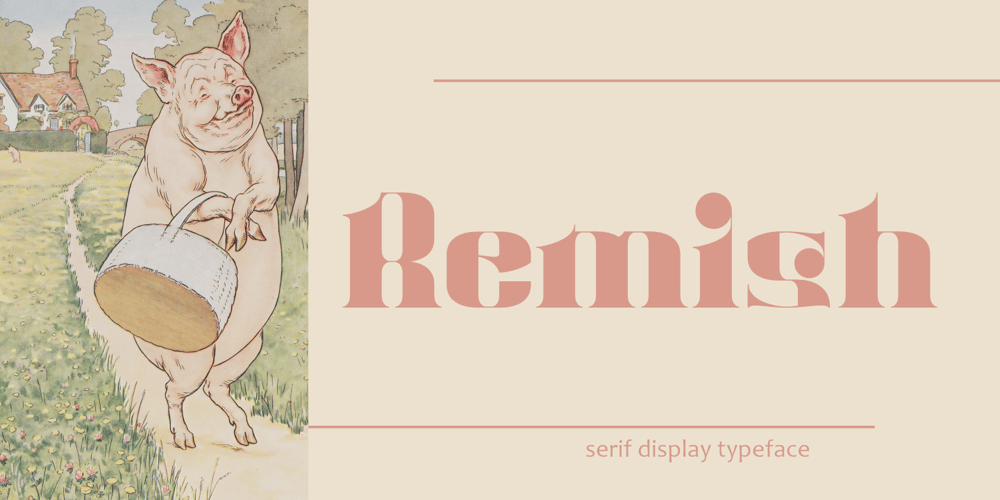
Remish
Remish font
Remish Font Family was designed by Raditya Putra Pratama and published by Raditya Type. Remish contains 1 styles and family package options. Remish is a bold serif with high contrast, making it a versatile and elegant typeface. With a touch of vintage vibes, it will add a sleek and bold look for headlines, invitations, advertising and more.